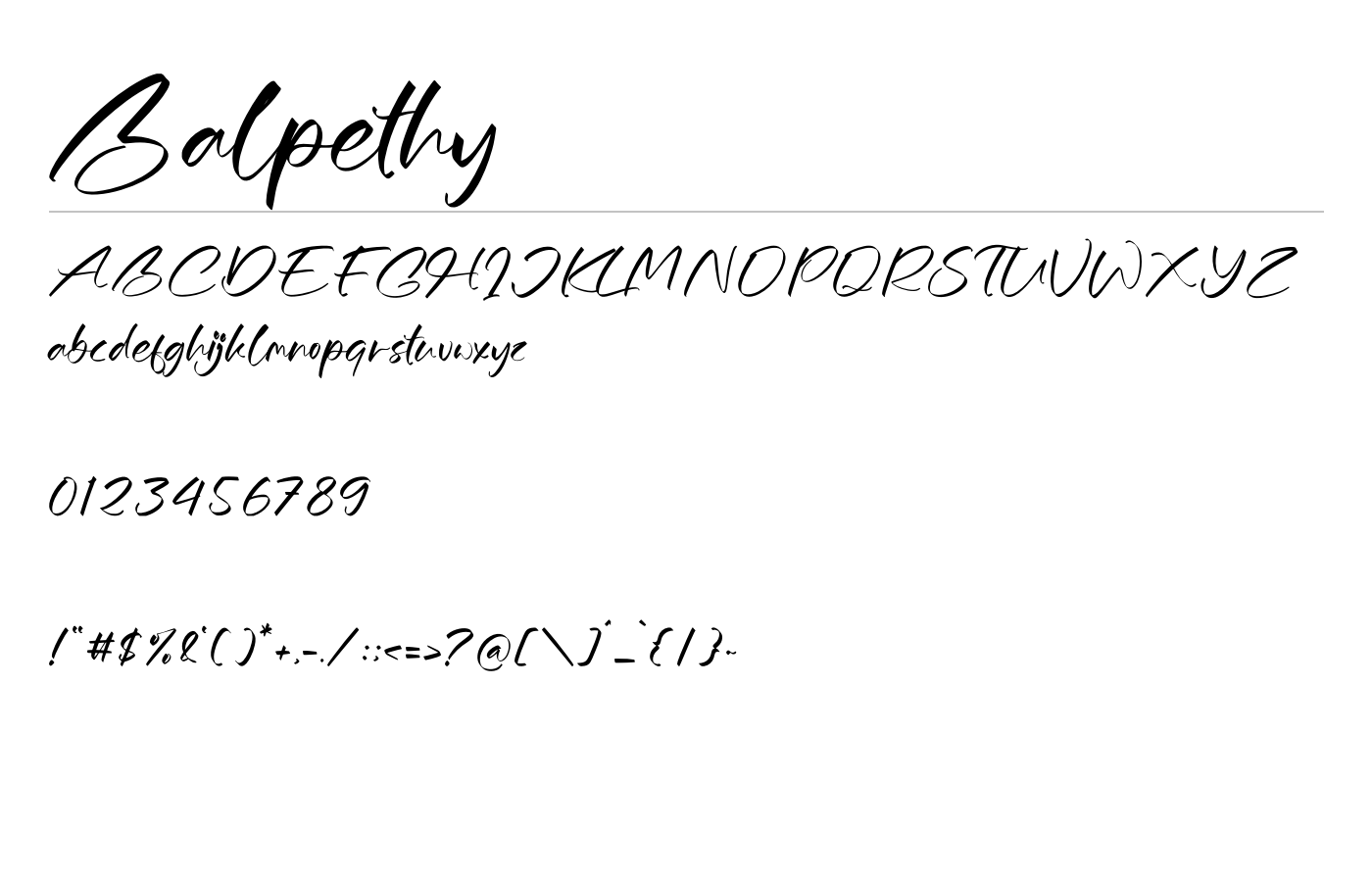
Balpethy is an elegant script font characterized by its fluid, handwritten style with smooth, flowing strokes and a moderate contrast that gives it a natural and personal feel. Its slender letterforms and playful yet refined curves make it ideal for creative branding, invitations, and stylish headlines where a touch of sophistication and warmth is desired. This font works beautifully in projects seeking a modern, artistic vibe with a handwritten charm.
Balpethy Font
About Balpethy Font